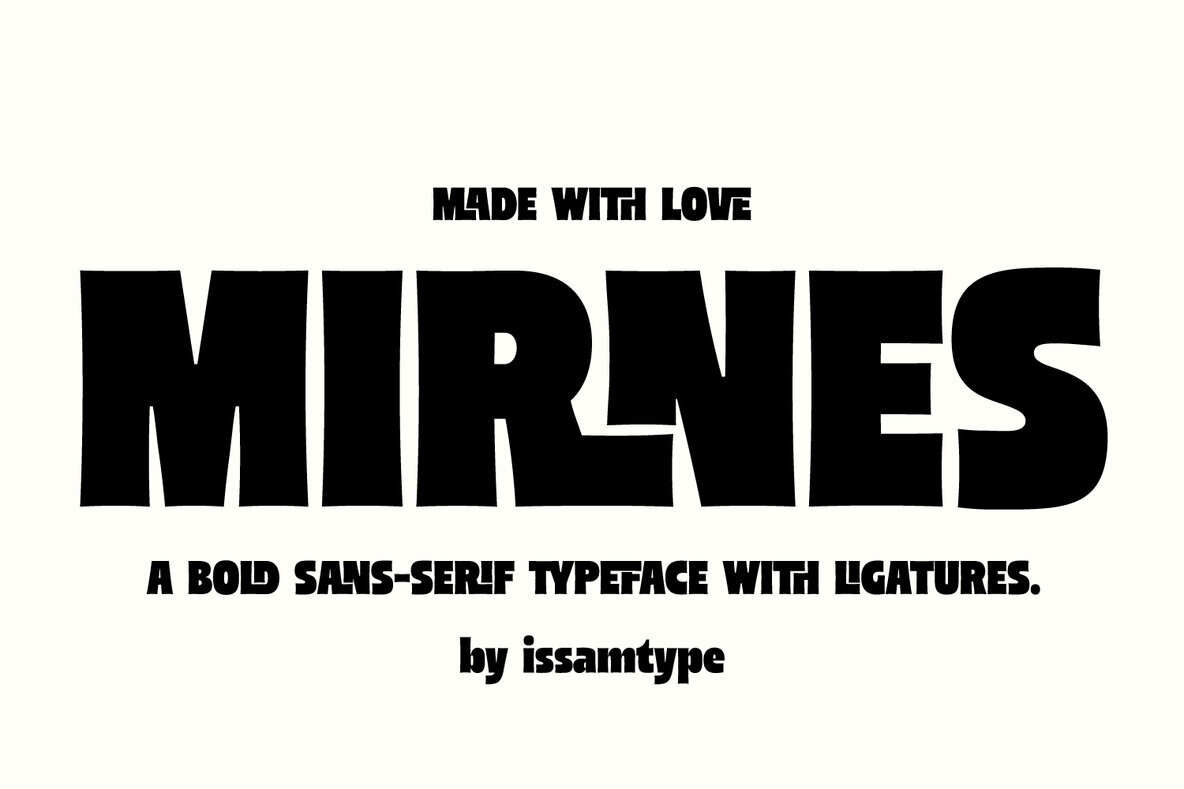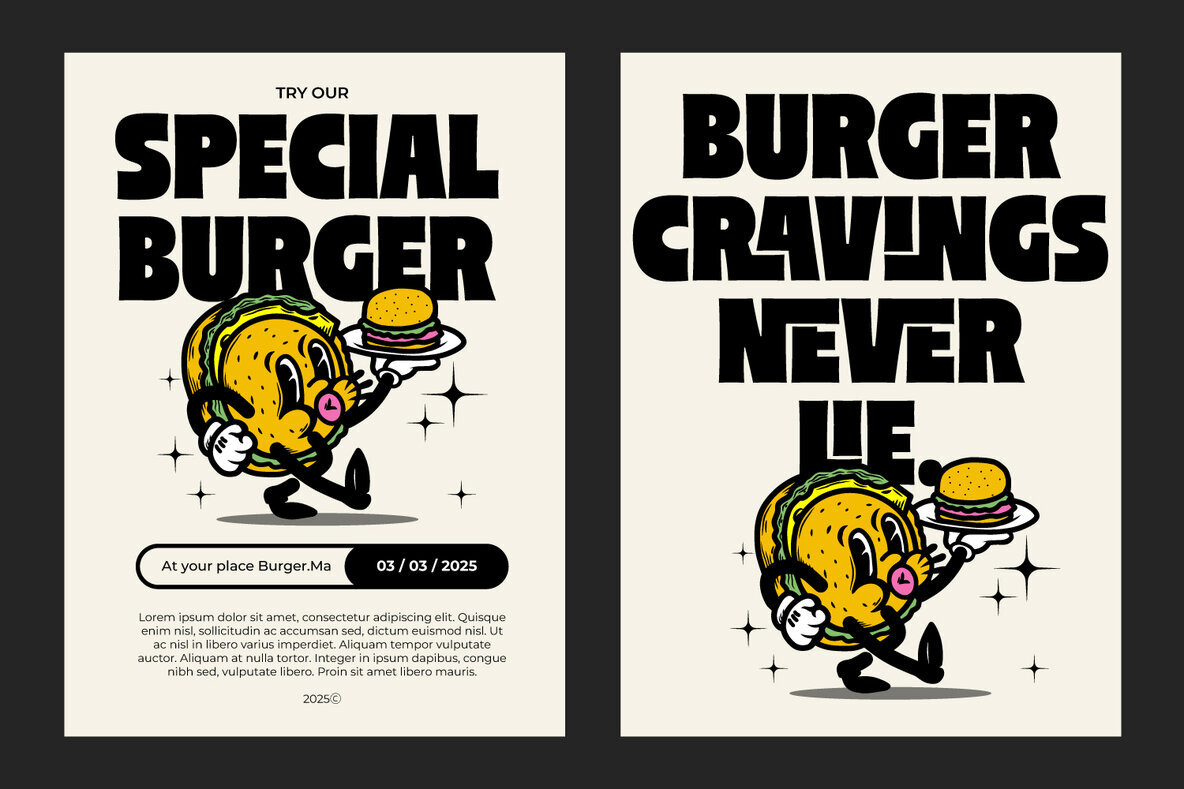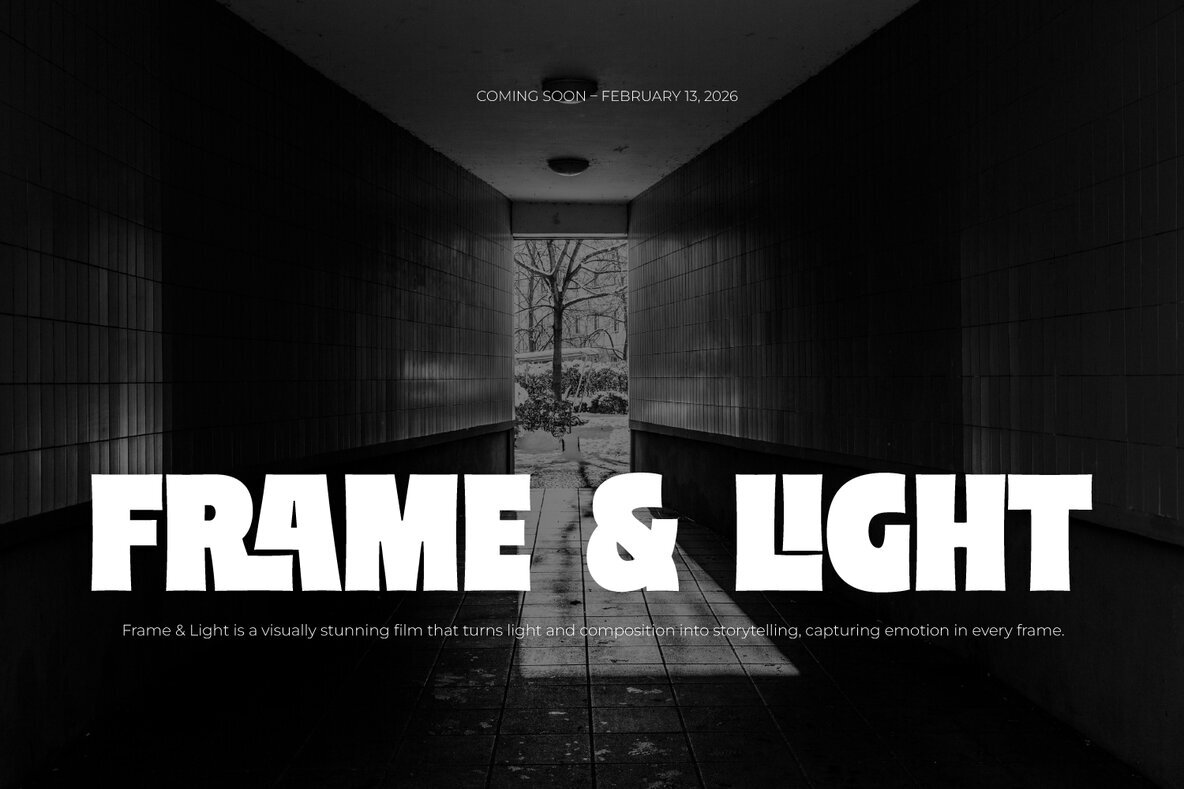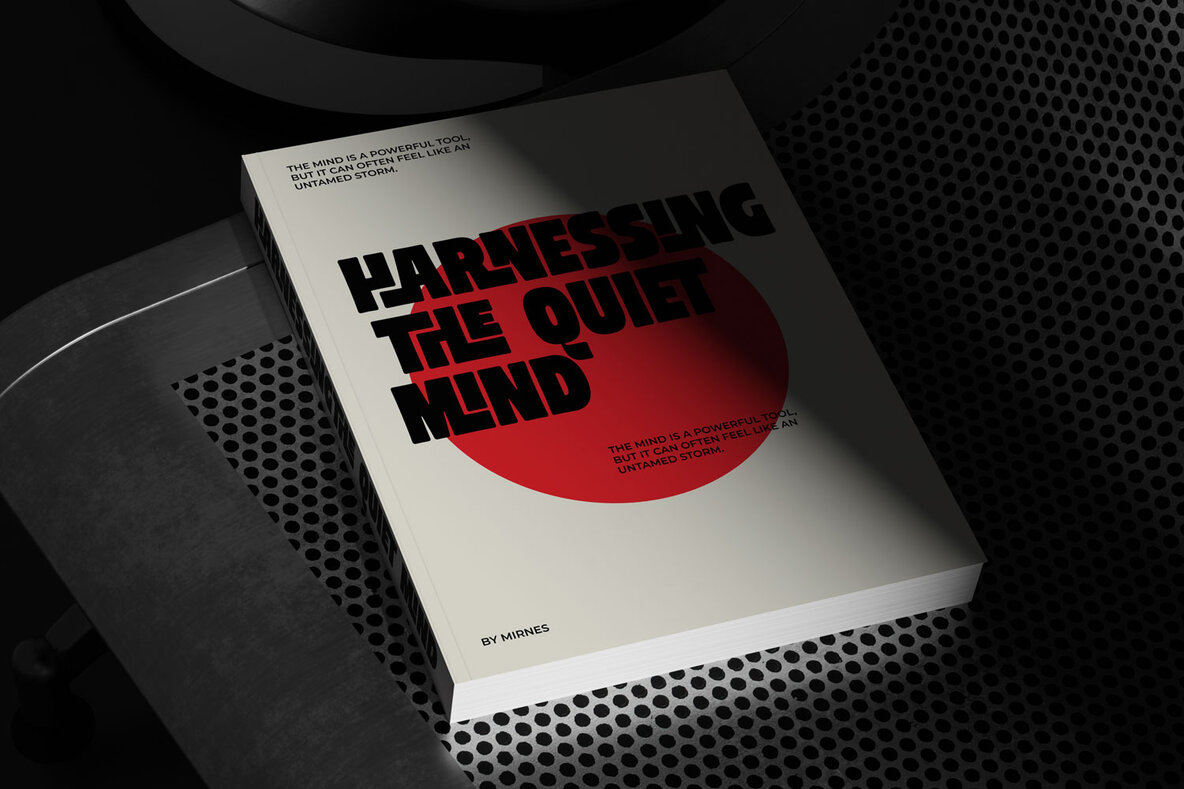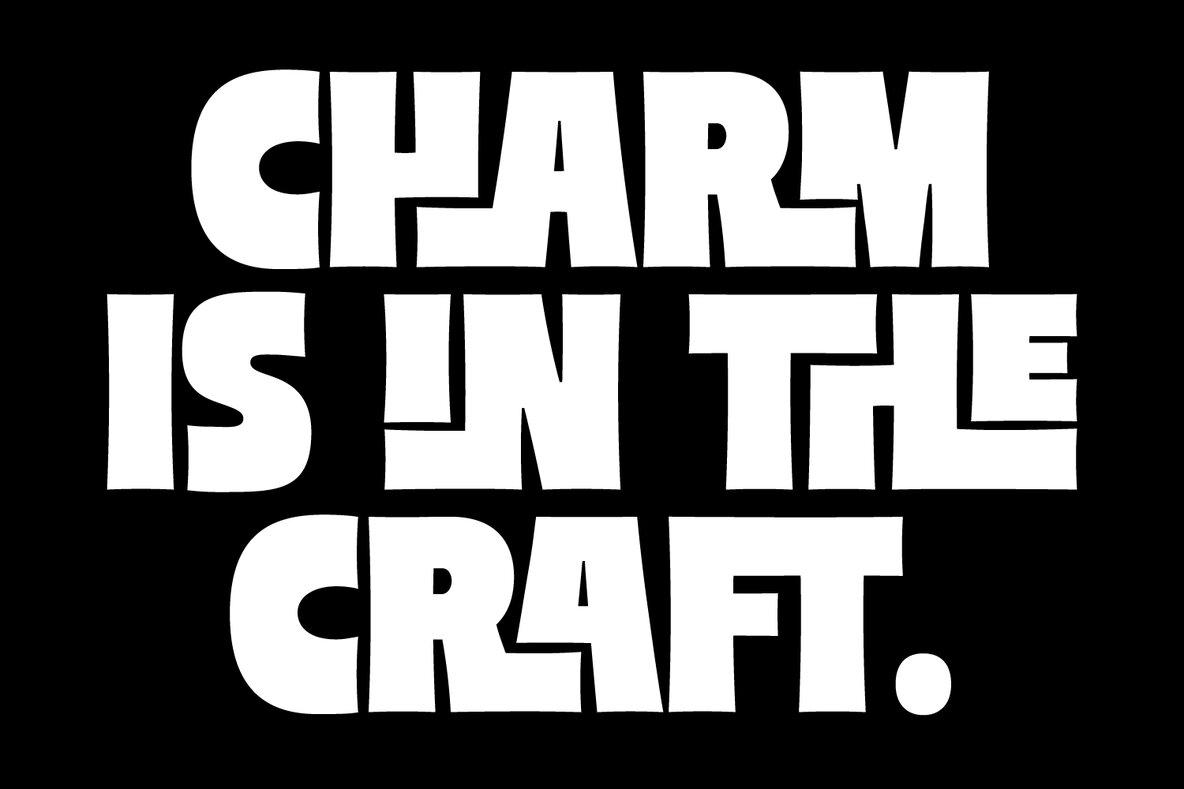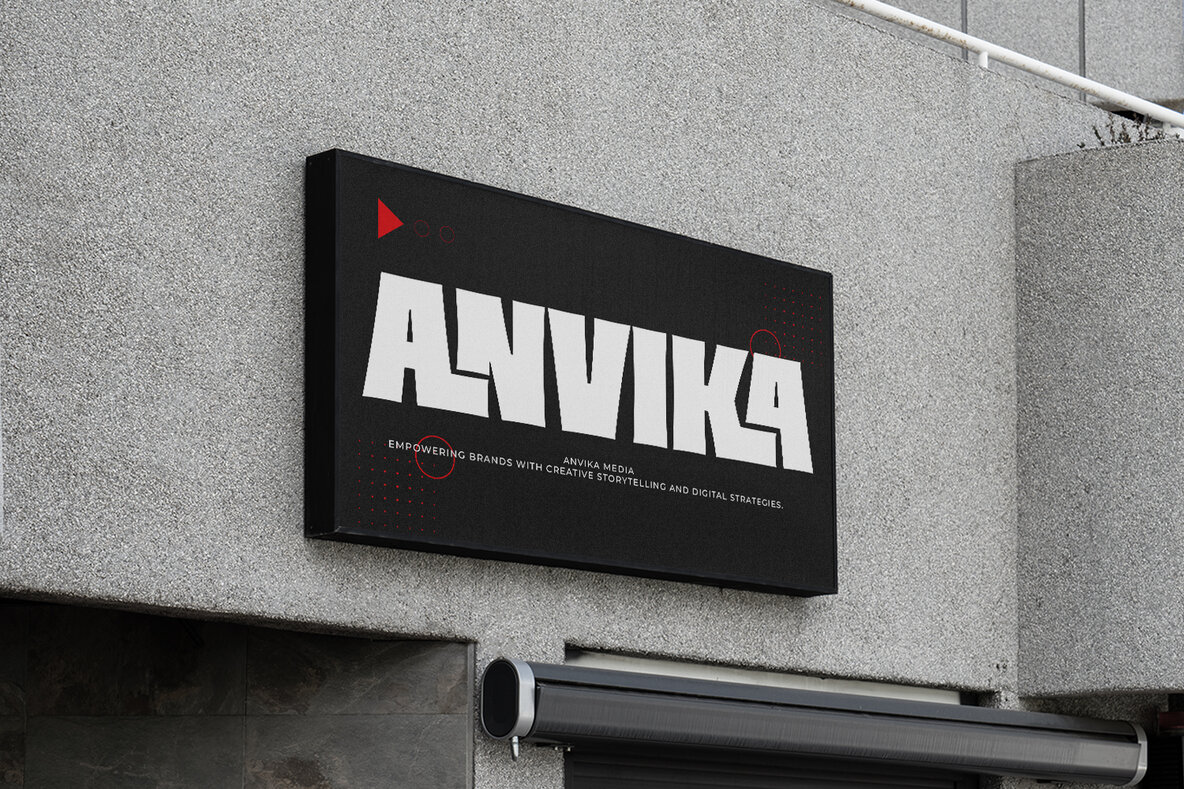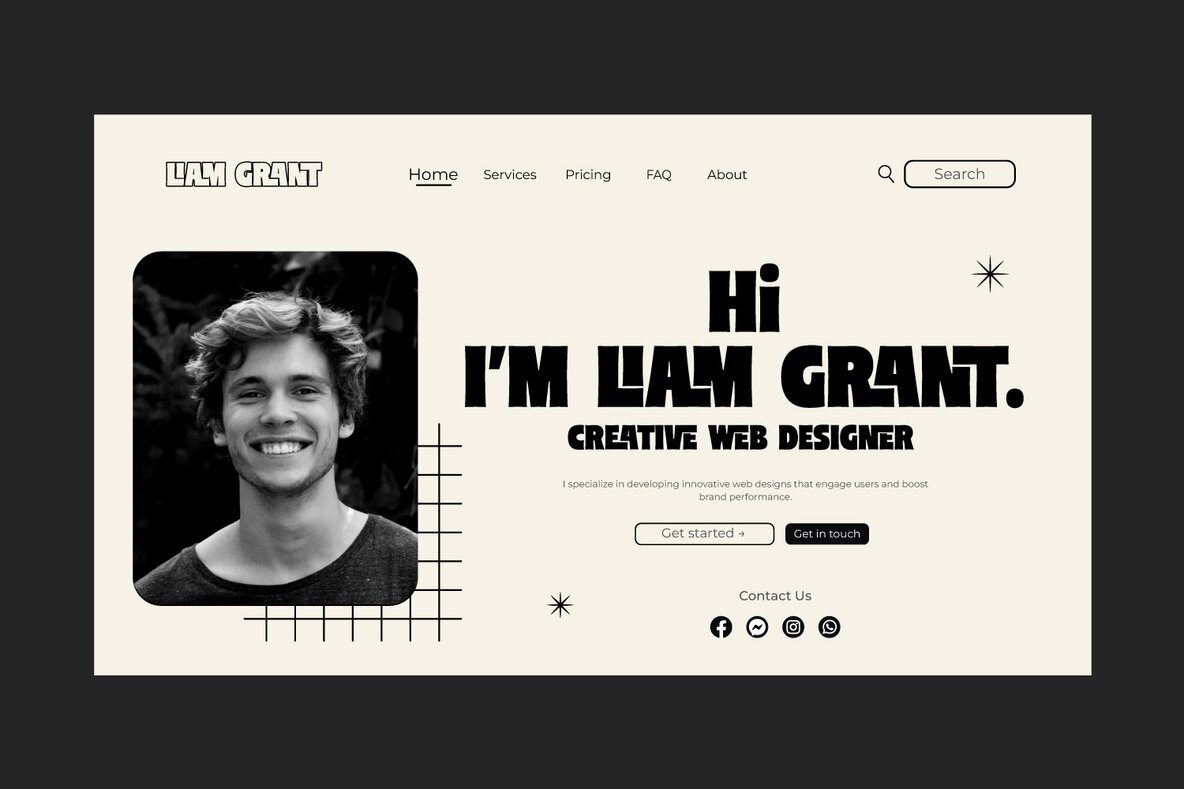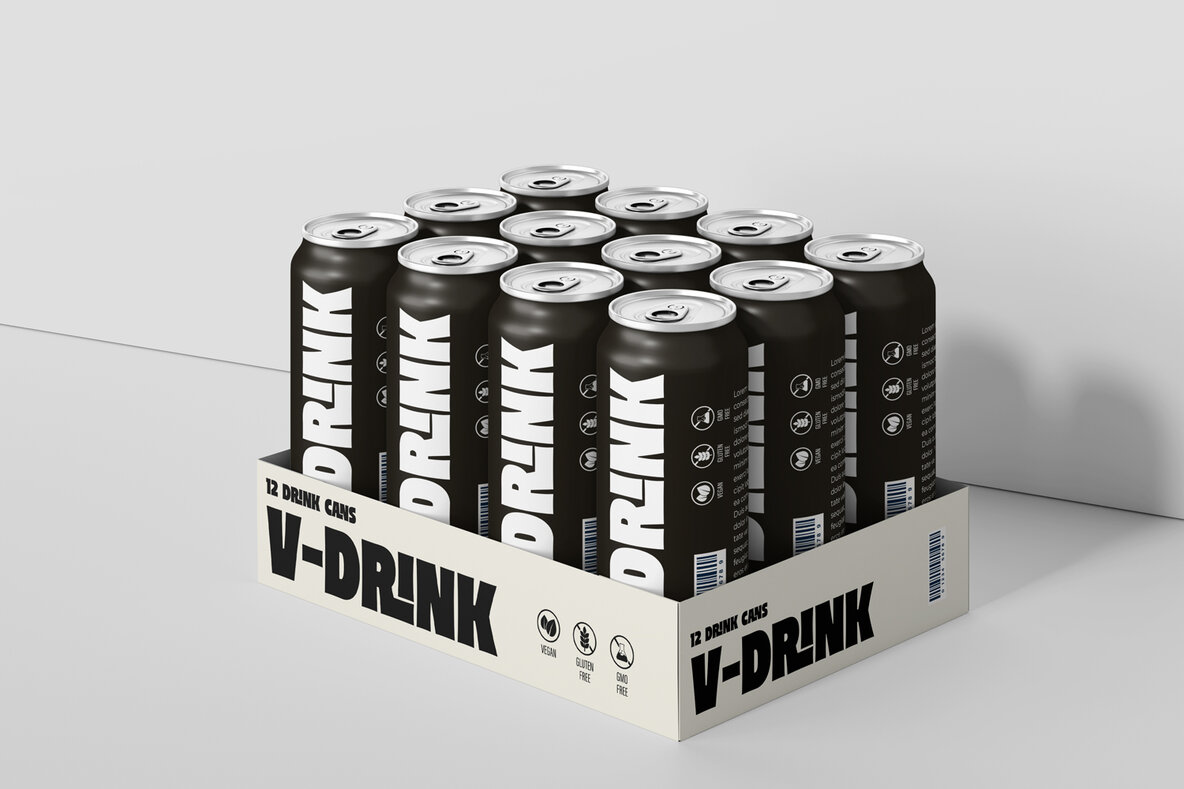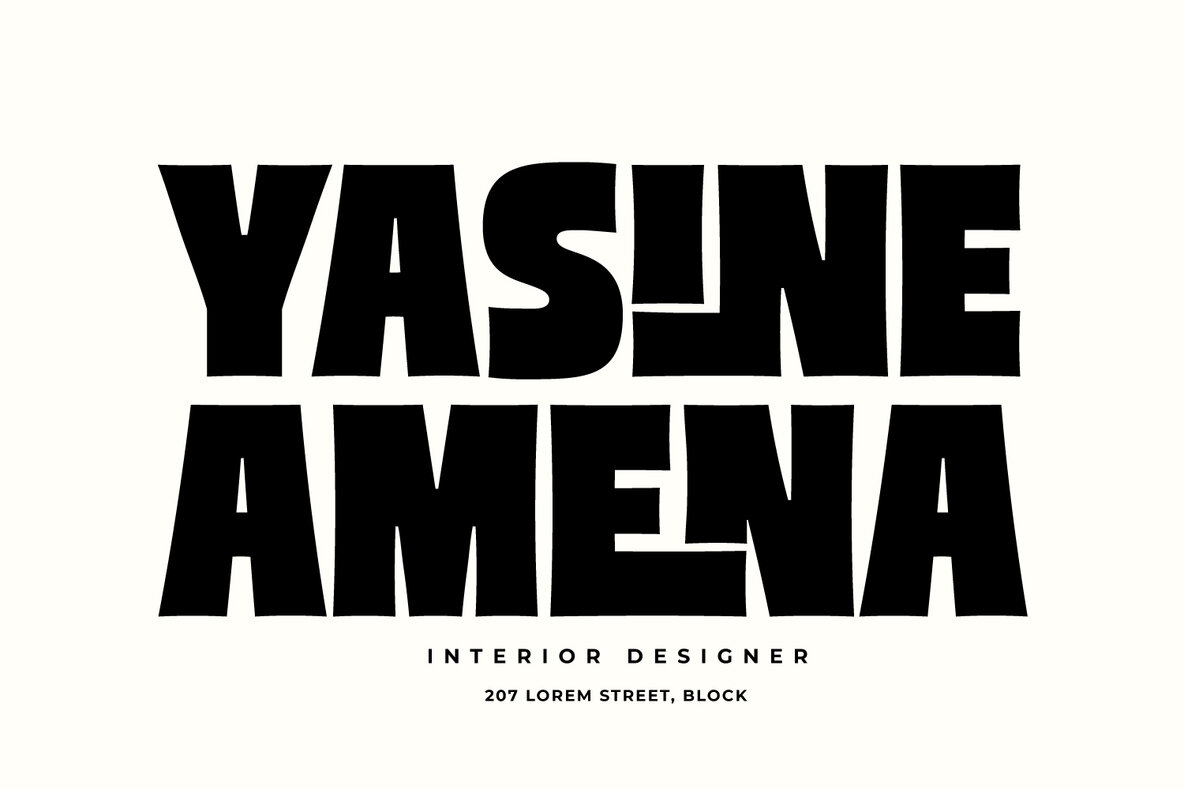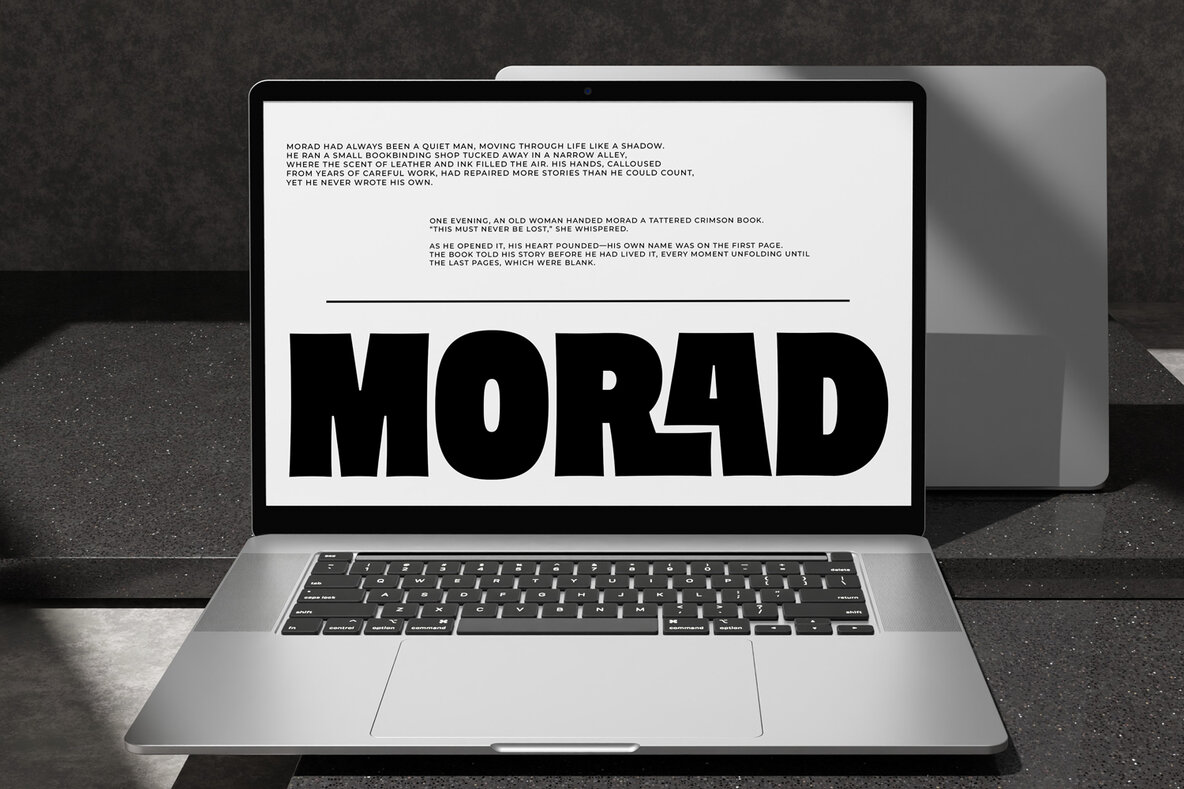
Mirnes Font
Mirnes
Mirnes Outline
Mirnes Rounded
Discover the bold elegance of Mirnes, a ligature typeface designed to make a statement. With its striking letterforms and unique ligatures, Mirnes is perfect for creating impactful headlines and imaginative branding. Ideal for a variety of design projects, this typeface offers an impressive collection of styles, including Regular, Rounded, and Outline versions. Elevate your designs with Mirnes, where versatility meets creativity.Mirnes Typeface